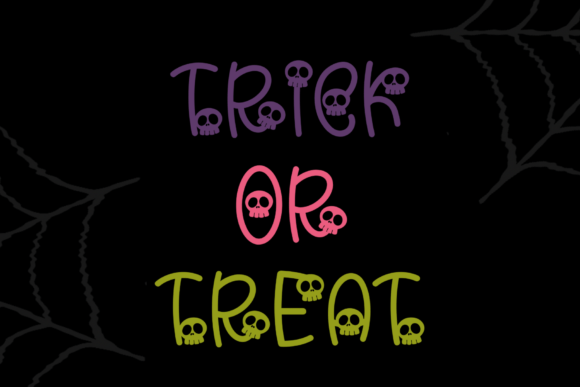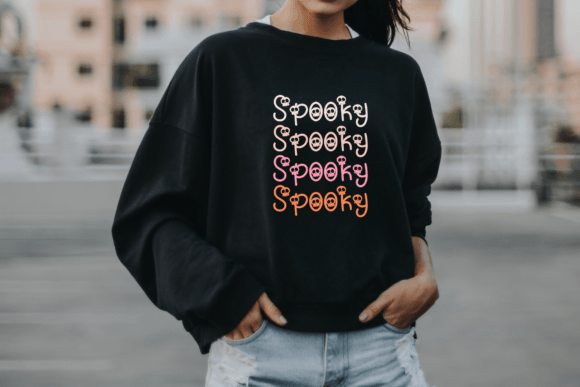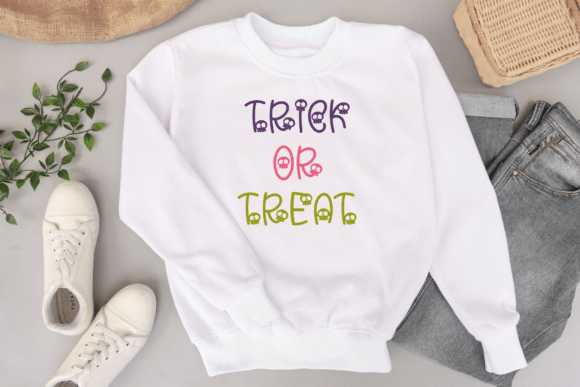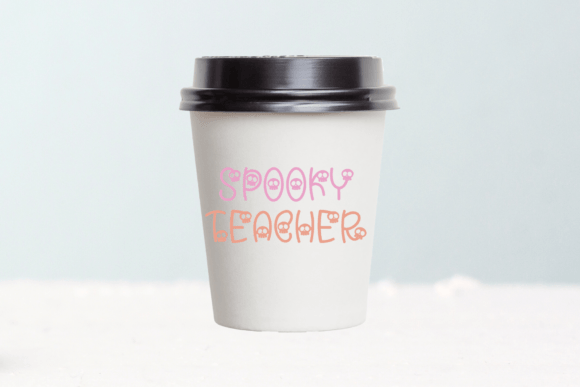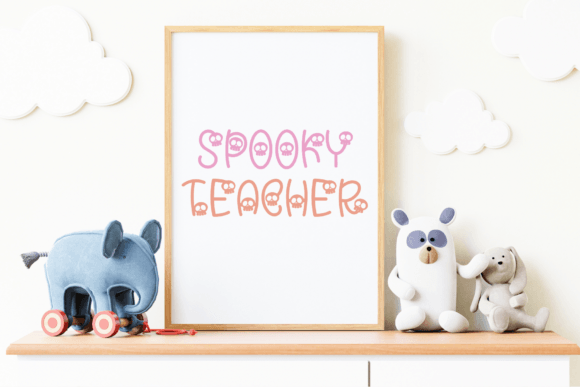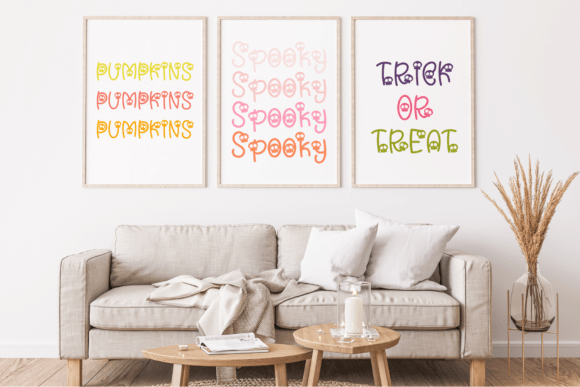
Cute Skull Font: Add a Touch of Whimsy to Your Designs
Are you looking for a font that can add a playful and spooky touch to your designs? Look no further than the Cute Skull Font! This fun decorative font is perfect for Halloween and children’s themes, cartoon-related designs, crafts, and any creation that requires a lovely touch. In this article, we’ll explore the features and uses of the Cute Skull Font, and how it can elevate your designs to the next level.
What is Cute Skull Font?
Cute Skull Font is a unique and creative font that features adorable skull designs with a playful twist. The font is designed to be fun, quirky, and eye-catching, making it perfect for designers and crafters who want to add a touch of whimsy to their work. The skull designs are stylized to be cute and non-threatening, making it suitable for a wide range of projects, from Halloween-themed designs to children’s party invitations.
Features of Cute Skull Font
• Playful and Fun Design: The Cute Skull Font features playful and fun skull designs that are sure to capture the attention of your audience.
• Halloween and Children’s Themes: The font is perfect for Halloween and children’s themes, including party invitations, decorations, and party favors.
• Cartoon-Related Designs: The Cute Skull Font is also great for cartoon-related designs, including comics, animations, and video games.
• Crafts and DIY Projects: The font is suitable for various craft and DIY projects, such as scrapbooking, paper crafting, and handmade cards.
Uses of Cute Skull Font
The Cute Skull Font is versatile and can be used for a variety of projects, including:
• T-Shirts and Apparel: Create fun and spooky t-shirts, hoodies, and hats with the Cute Skull Font.
• Tote Bags and Accessories: Add a playful touch to tote bags, stickers, and other accessories with the Cute Skull Font.
• Logos and Branding: Use the Cute Skull Font to create unique and memorable logos and branding materials.
• Cards and Invitations: Create spooky and fun cards and invitations for Halloween and other occasions.
• Quotes and Posters: Use the Cute Skull Font to create inspiring quotes and posters with a playful touch.
Tips for Using Cute Skull Font
Here are some tips for using the Cute Skull Font:
• Experiment with Colors: The Cute Skull Font looks great in a variety of colors, so don’t be afraid to experiment and find the perfect color scheme for your design.
• Mix and Match with Other Fonts: The Cute Skull Font can be paired with other fonts to create a unique and interesting design.
• Use it for Headlines and Titles: The Cute Skull Font is perfect for headlines and titles, adding a playful and eye-catching touch to your design.
The Cute Skull Font is a fun and versatile font that can add a playful and spooky touch to your designs. With its unique and creative skull designs, it’s perfect for Halloween and children’s themes, cartoon-related designs, crafts, and any creation that requires a lovely touch. Whether you’re a designer, crafter, or DIY enthusiast, the Cute Skull Font is a great addition to your font collection. So why not give it a try and see how it can elevate your designs to the next level?